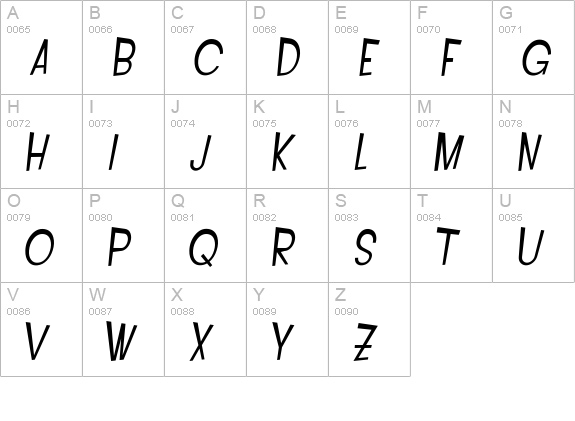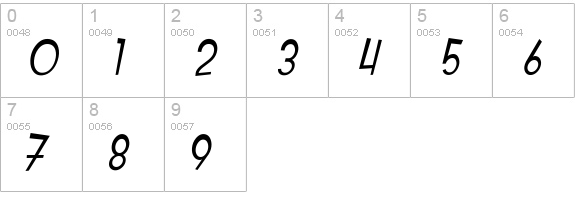
SF Intoxicated Blues Extended Oblique Font Details
SF Intoxicated Blues Extended Oblique is a distinctive, extended-width, italic variant in the SF typeface family \xE2\x80\x94 well suited to design and typography projects.
Introducing SF Intoxicated Blues Extended Oblique font, a mesmerizing typeface that beautifully fuses the elegance of oblique letterforms with the soulful essence of blues music. This font is like a midnight stroll through a dimly lit jazz club, where the air is thick with nostalgia and the music intoxicates your senses. With its extended and slightly slanted characters, SF Intoxicated Blues creates a unique visual rhythm that captures the essence of a blues guitar riff. Each letter dances across the page, exuding a sense of movement and emotion that is both captivating and alluring. This font is perfect for capturing the essence of vintage album covers, retro posters, and any design project that calls for a touch of bluesy sophistication. It seamlessly blends the raw energy of the blues with a modern twist, making it a versatile choice for a wide range of creative endeavors. And the best part? SF Intoxicated Blues Extended Oblique font is available for free download at FontsMarket.com. So you can bring your designs to life without breaking the bank. Whether you're a professional designer or a hobbyist, this font will undoubtedly become a valuable addition to your typography arsenal. So why wait? Let SF Intoxicated Blues Extended Oblique font take you on a journey through the smoky depths of the blues. Download it today and let your creativity soar to new heights.